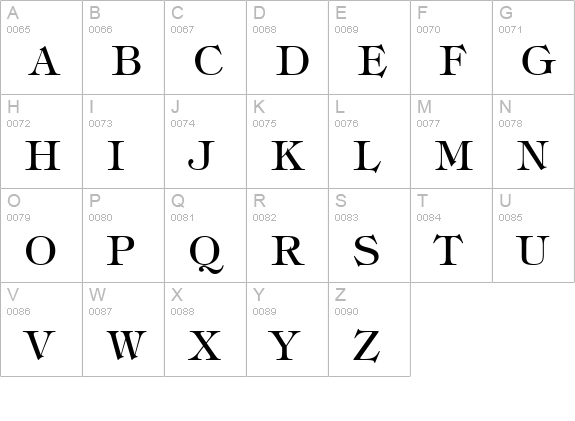
Sophisticate SSi font is a stunning display typeface that embodies elegance, refinement, and class. Its sleek and sophisticated design exudes a sense of timeless beauty, making it perfect for high-end branding, luxury packaging, and exclusive invitations. With its refined serifs and delicate curves, Sophisticate SSi font adds a touch of sophistication to any project. Whether used for headlines, logos, or editorial designs, this font commands attention and leaves a lasting impression. What sets Sophisticate SSi font apart is that it is not only visually appealing but also freely available to download. You can easily access this font at FontsMarket.com, a trusted source for high-quality fonts. This means that you can enhance your designs with this exquisite typeface without any additional cost. Whether you are a professional designer or a creative enthusiast, Sophisticate SSi font empowers you to elevate your projects to new heights. Its versatility and inherent elegance make it a valuable asset in your font collection. So, if you're looking to add a touch of sophistication to your designs without breaking the bank, look no further than the freely available Sophisticate SSi font at FontsMarket.com. Download it today and unlock the potential to create visually stunning and refined designs that leave a lasting impression.